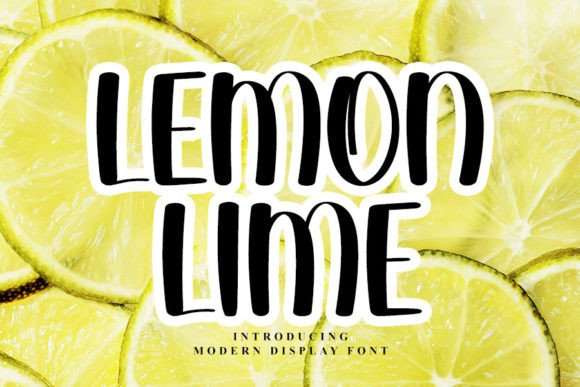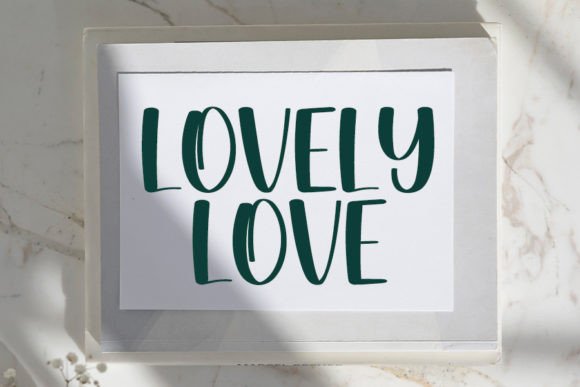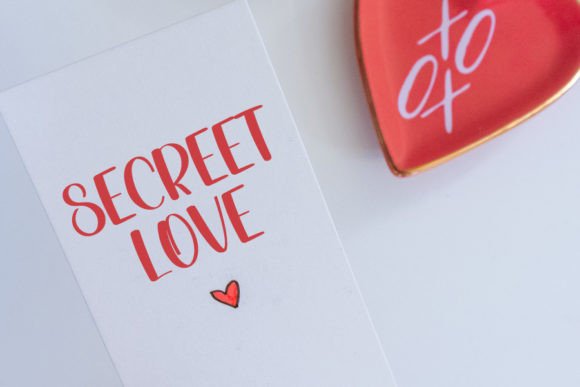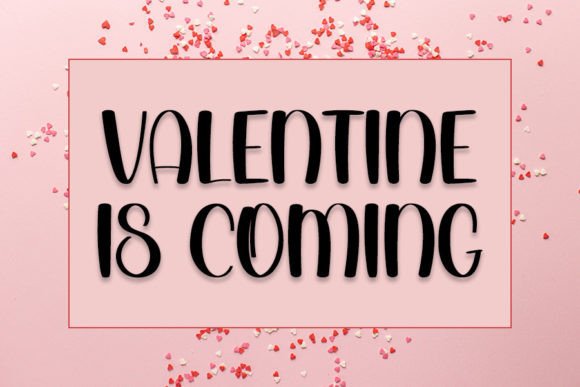
Lemon Lime
About Lemon Lime
Lemon Lime is a trendy handwritten font with a contemporary atmosphere and impeccable form, inspired by a timeless classic calligraphy. It will add elegance and class to any of your design projects.